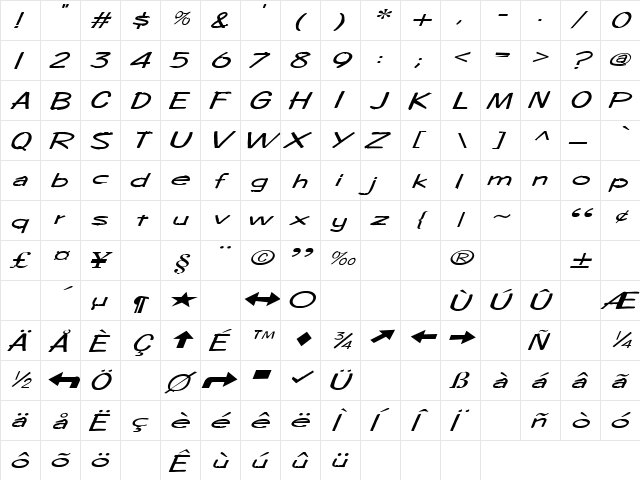
Dreamscapes 4 Italic
Design Context for Dreamscapes 4 Typeface
Dreamscapes 4 offers clean, dependable letterforms without strong stylistic allegiance, making it a practical choice for designers who need flexibility. Its italic angle brings a sense of urgency and motion to the letterforms.
Pro Tip: Try Dreamscapes 4 for annotation and caption copy alongside an upright companion — the contrast in angle creates a dynamic but ordered typographic system.